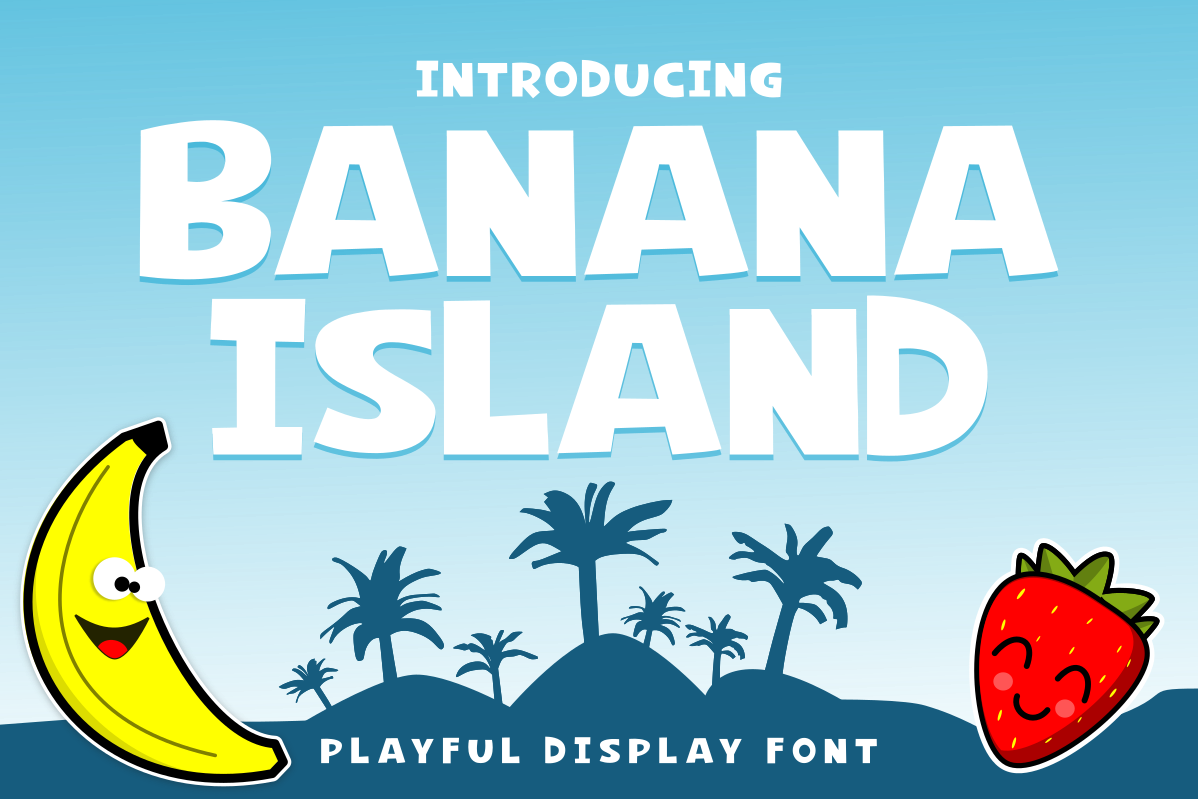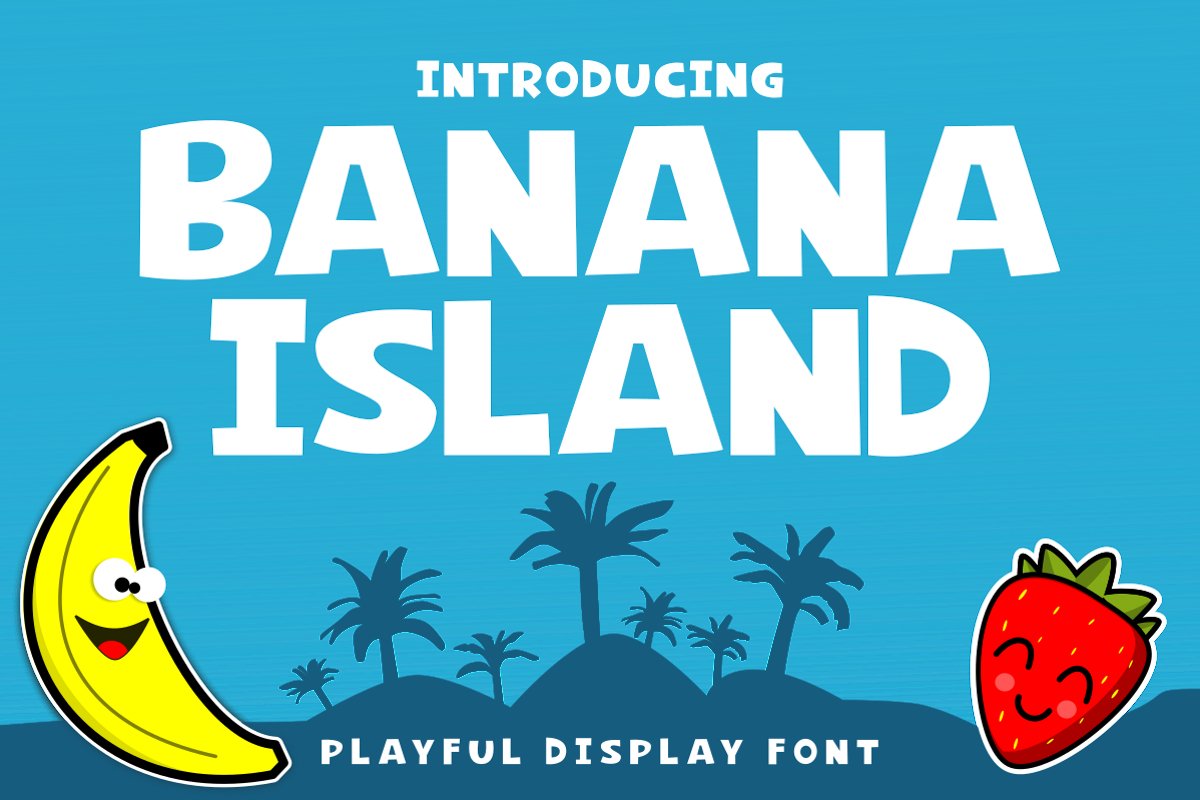
Banana Island
Introducing Banana Island, a playful and thick display font!
• Letters A-Z in both uppercase and lowercase spots (in case you forget to turn caps lock on!)
• Numbers 0-9 and select symbols